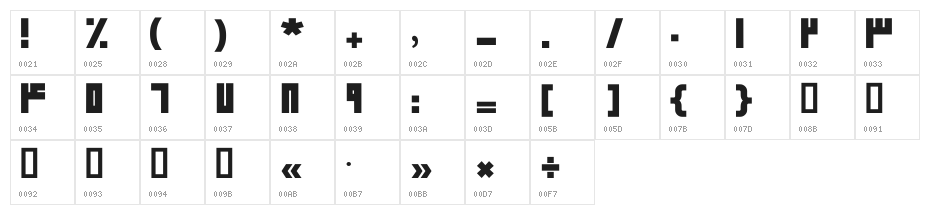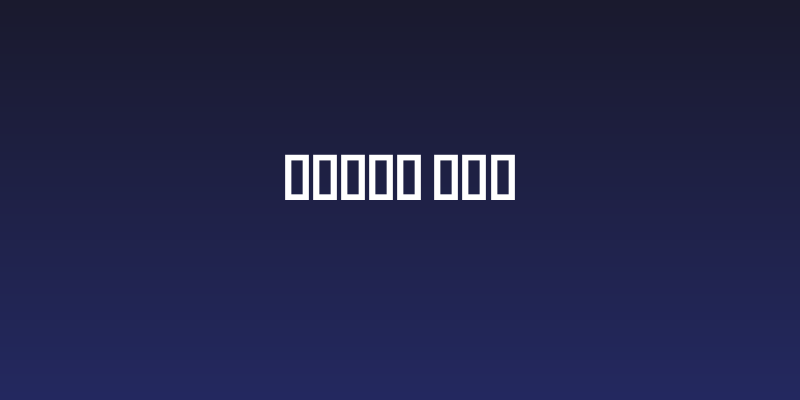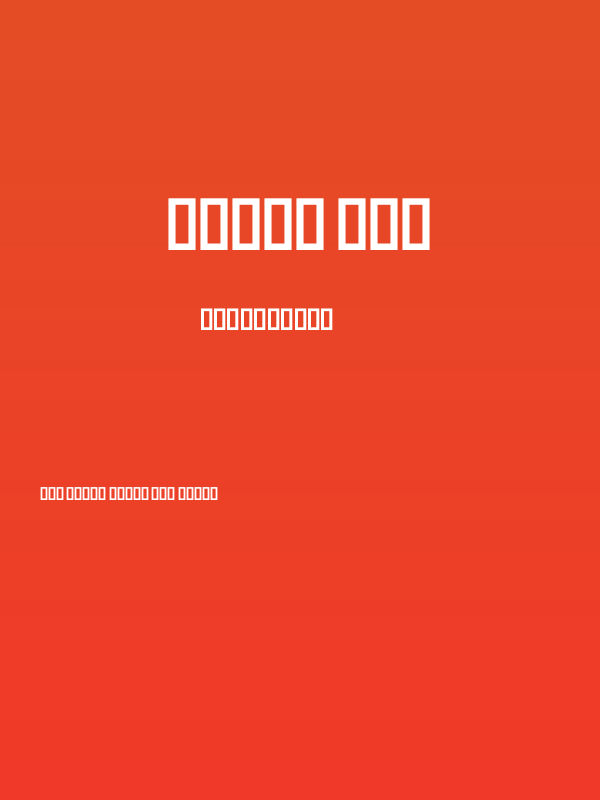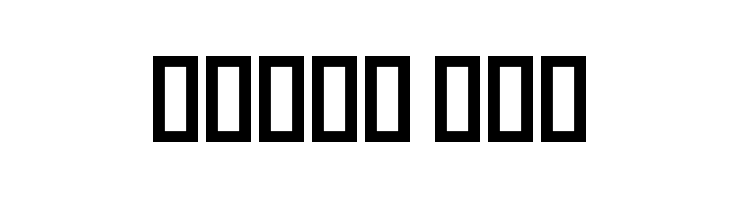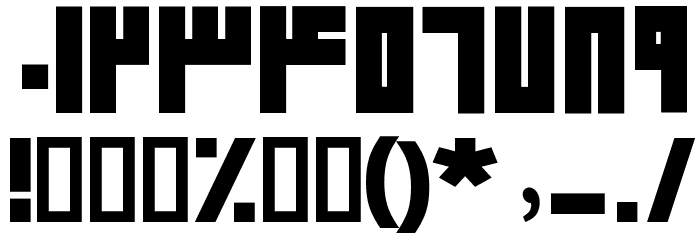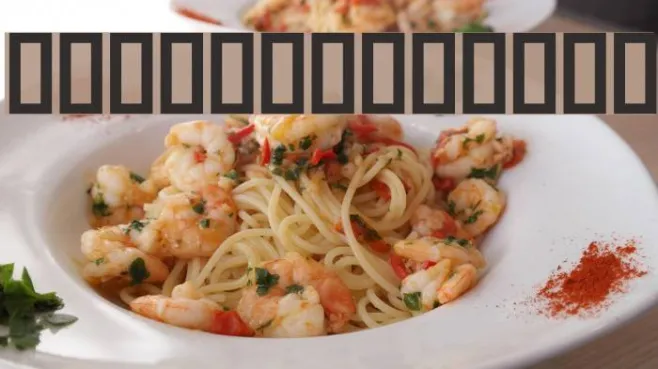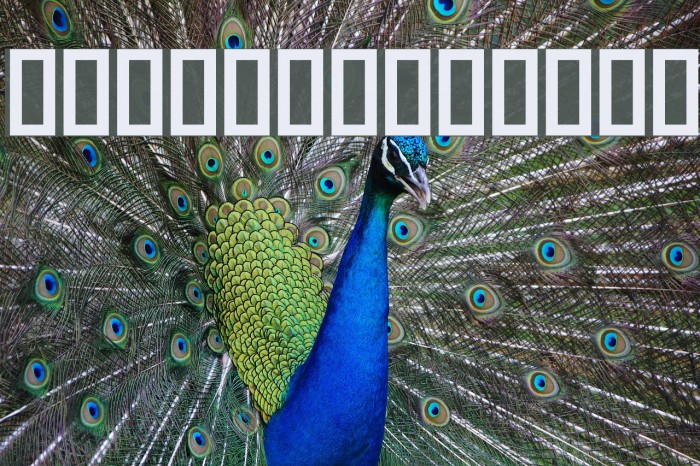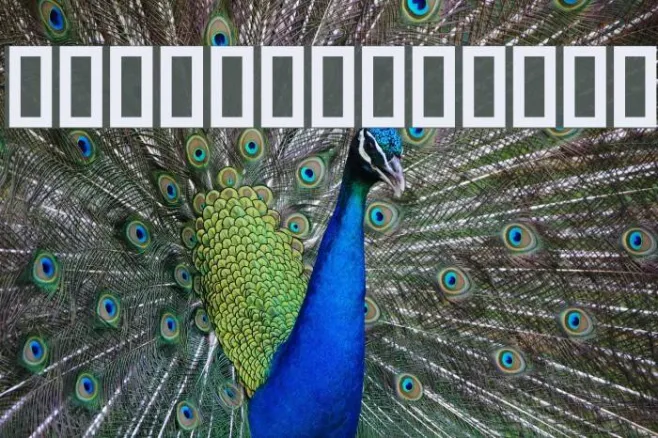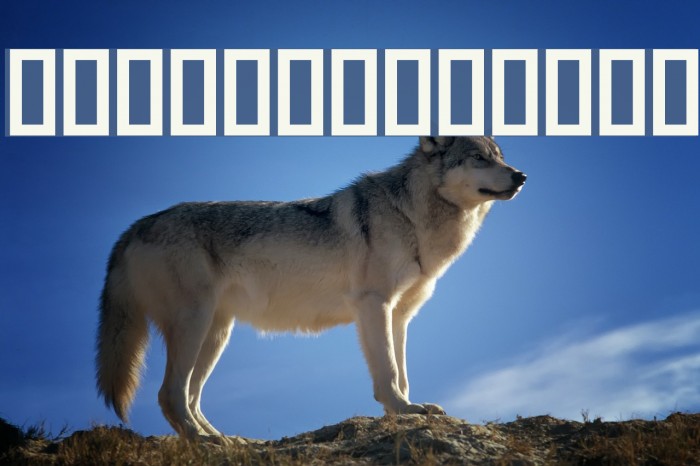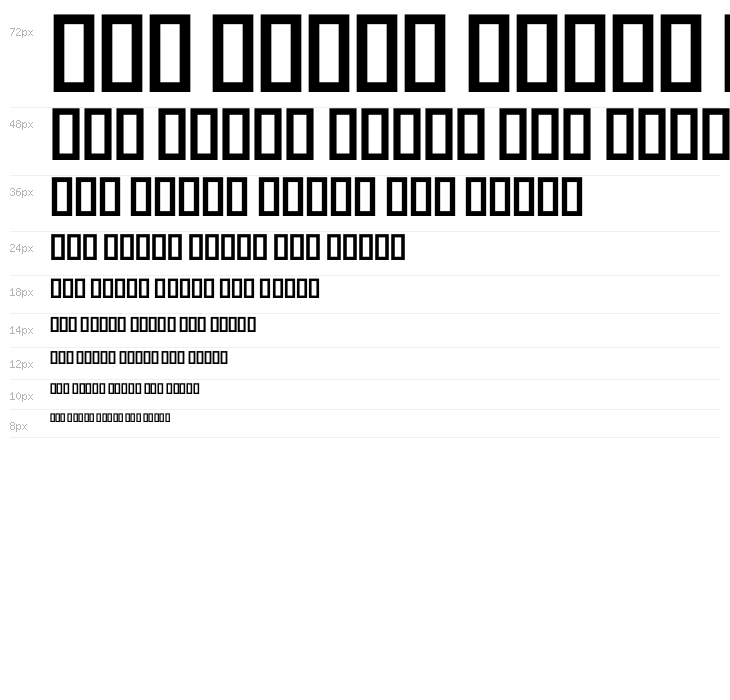
Amood III Font
Amood III Description
This font features a bold and geometric design, characterized by its thick, block-like letters with sharp angles and straight lines. The uppercase and lowercase letters maintain a consistent height, creating a uniform appearance. The numerals and special characters follow the same bold style, ensuring a cohesive look across all text. The font's strong presence makes it ideal for attention-grabbing headlines and titles. Its modern and industrial aesthetic is suitable for projects that require a contemporary and impactful visual style.
| Proposed Projects | Ideal for posters, headlines, branding, and any design requiring a strong visual impact. |